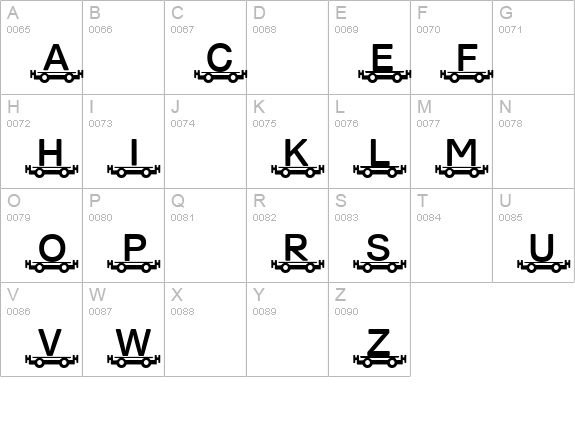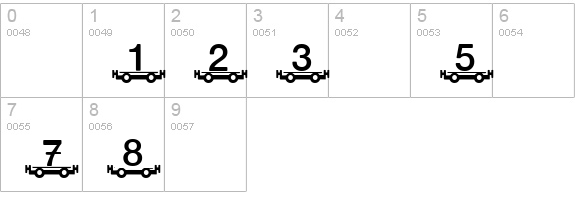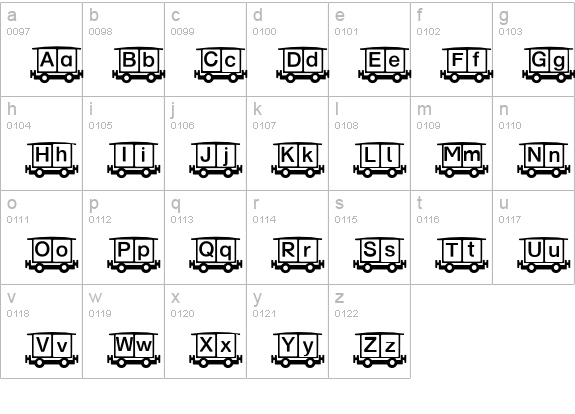
Eisenbahn Font Details
Eisenbahn font is a versatile and stylish typeface that exudes a timeless charm and elegance. With its bold and distinctive letterforms, Eisenbahn is perfect for creating eye-catching headlines, logos, and branding materials. This font strikes the perfect balance between modernity and classic design elements, making it suitable for a wide range of design projects. What sets Eisenbahn font apart is not just its aesthetic appeal, but also its accessibility. This high-quality font is available for free download at FontsMarket.com, allowing designers and creatives to access this premium typeface without any cost. Whether you're working on a personal project or a commercial endeavor, Eisenbahn font provides a sophisticated and polished look that will elevate your designs to the next level. Download Eisenbahn font today and add a touch of elegance to your typographic creations.